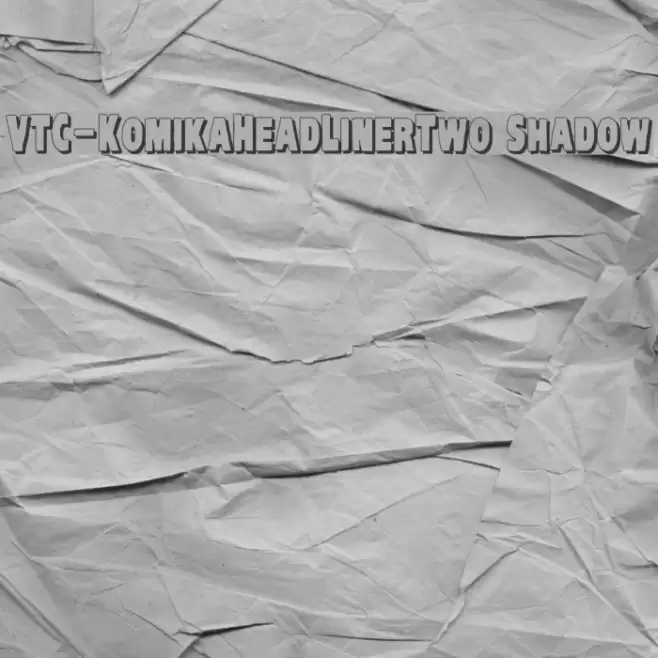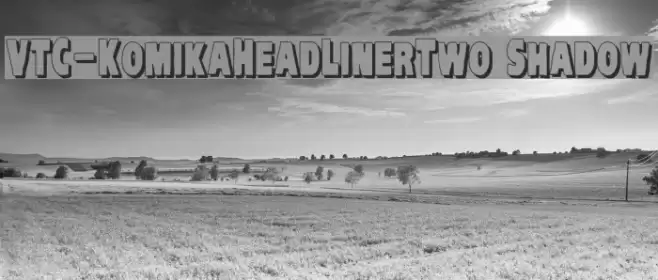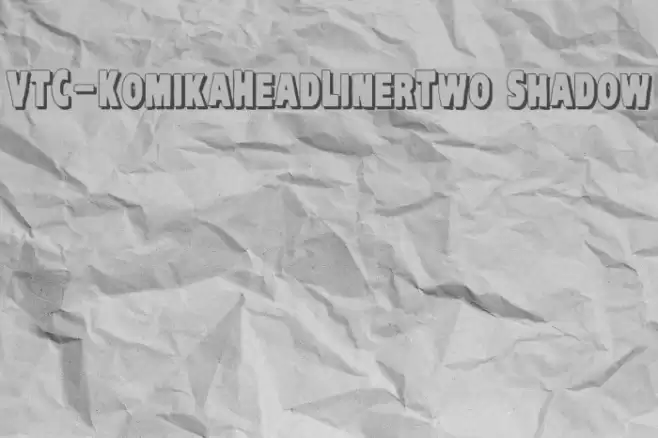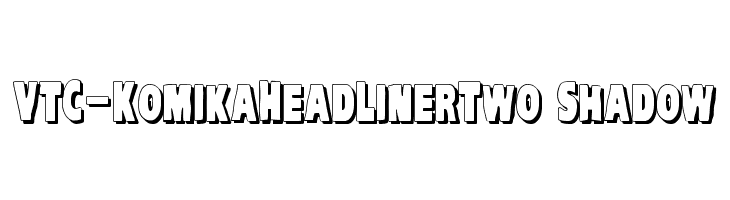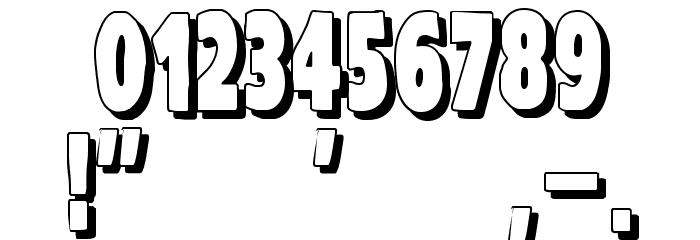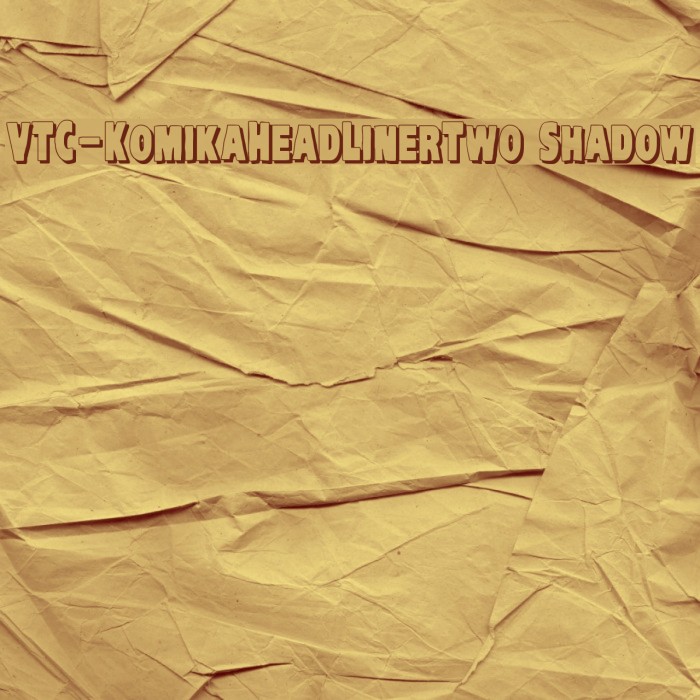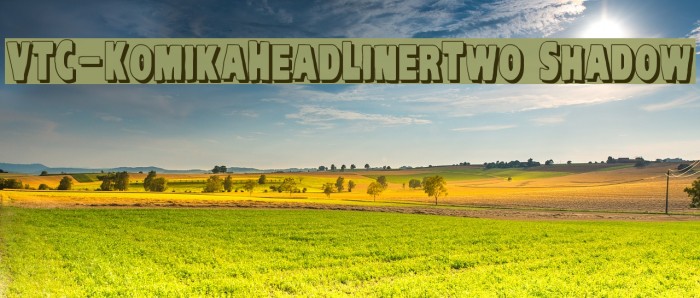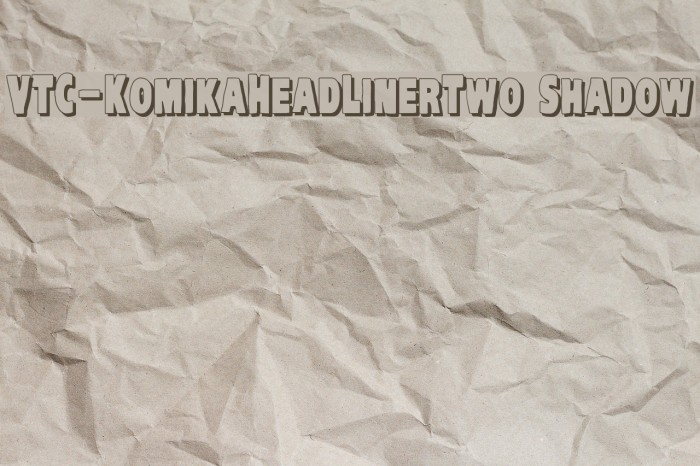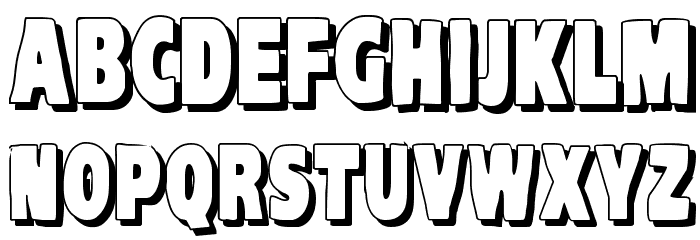
VTC-KomikaHeadLinerTwo Shadow Font
VTC-KomikaHeadLinerTwo Shadow Description
This font features a bold, playful style with a distinct shadow effect that gives it a three-dimensional appearance. The characters are uppercase with a strong, impactful presence, making them ideal for attention-grabbing designs. The shadow adds depth and a sense of fun, reminiscent of comic book lettering. The strokes are thick and consistent, contributing to a cohesive and robust look. The font is well-suited for creative projects that require a lively and dynamic feel.
A bold, playful font with a three-dimensional shadow effect from Cartoon fonts.
- Proposed Projects: Ideal for comic book titles, posters, children's book covers, and playful branding.
- Overall Style: Playful, Comic